If you’re looking for a font style that feels soft, friendly, and approachable, rounded fonts might be exactly what you need. With their smooth, curved edges, rounded fonts give off a relaxed vibe—perfect for making your designs feel warm yet professional.
As the name suggests, rounded fonts are typefaces with soft, rounded corners instead of sharp or angular ones. This simple detail makes them feel inviting, fun, and easy to connect with. They’re often used by brands that want to appear warm, cheerful, or even futuristic in a subtle way.
Rounded fonts work great in many different situations, such as:
Looking for rounded fonts that are not only cute but also full of character? Here are some favorites from Burntilldead Studio:
Our groovy font family that playful and has unique style. With its bouncy curves make this font looks friendly, fun and energetic. This font also include ligature, alternate and multilingual support. With variety of weight, allowing you to create range of looks from thin to black. Despite its playful style, Majoread has clear readability. Ideal for playful brands, social media, poster for events, and anything that needs cheerful and inviting touch.
2. Blowpis
Blowpis is a playful and edgy display font that melts the ordinary. Inspired by dripping textures and bubbly shapes. It comes in 2 unique style: Regular and Solid. Regular style crafted with fun highlight effects to add depth and make your letters pop in a playful way. And Solid style, No highlights, just bold and chunky! Great for punchy headlines and loud visual statements. Blowpis includes cool alternates that turn your letters into bubble-like blobs, liquid drips, or even creepy horror vibes. Just mix and match! Best fot music & event posters, streetwear design, album covers, Y2K vibes oe even experimental layouts. Blowpis brings a fresh vibe to your design, perfect for those who love to stand out!
3. Loney Loons
Say helo to Loney Loons, a modern, playful and unique font that creates contemporary look with artistic flair and balances readability. The style features smooth, rounded edges combined with holes within the letterforms. The rounded curves add a soft, approachable feel, while the holes introduce a sense of the edginess, making it perfect for creative projects, branding or eye-catching headlines.
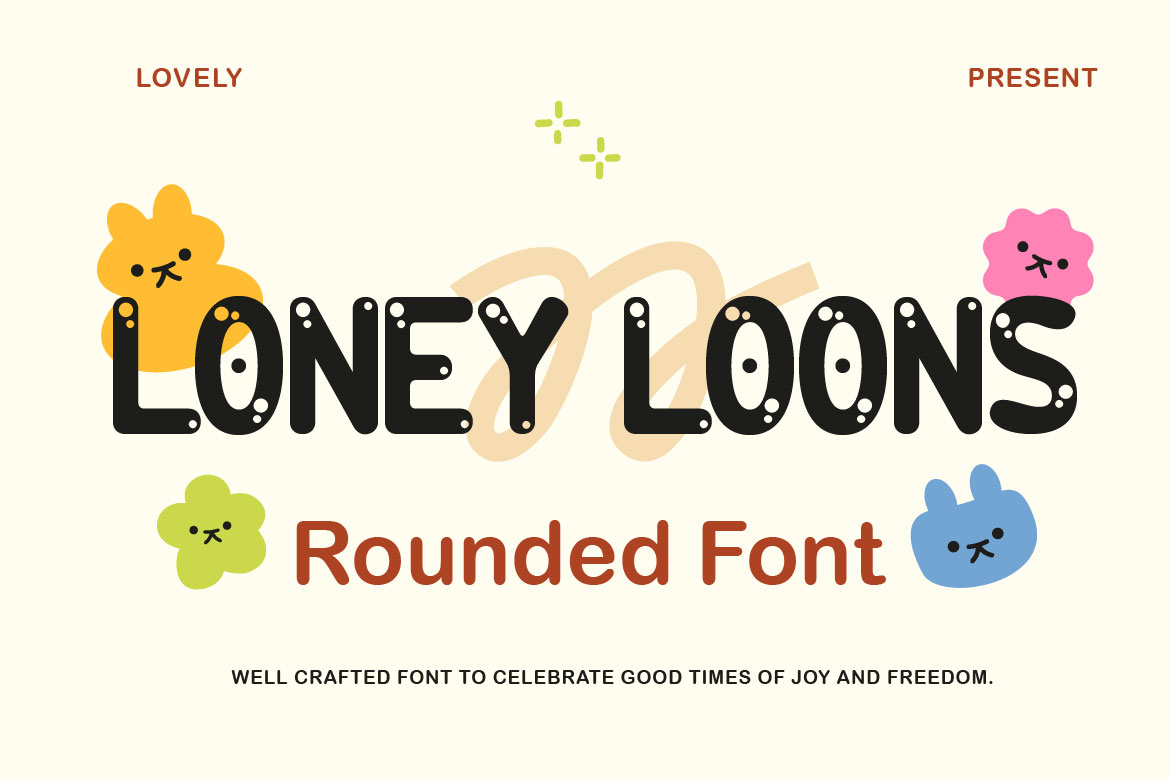
4. Glofium
Glofium, a bold and chunky typeface that’s super fun to use and easy to read. It comes with 2 styles: Regular dan Italic, so you can mix things up and keep your design looking fresh. This font have characterize of warm, friendly and impossible to ignore. If you’re working on a poster, branding project, social media post, poster, big headlines, product packaging or just want your words to stand out, Glofium got your back! The shapes are thick, rounded and friendly - making your text look bold but still super easy to read.
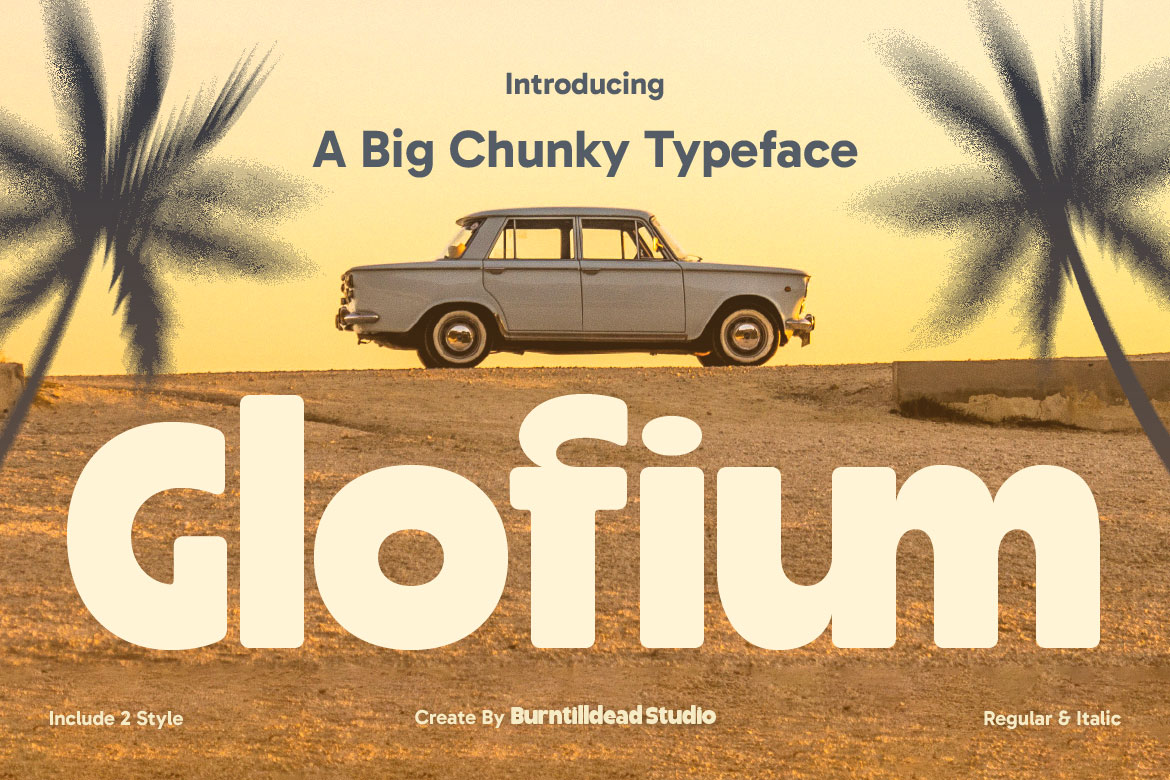
5. Holiyas
Holiyas, display font with unique and stylish characters. With a refreshing modern touch features beautiful ligatures, adding an artistic and unique touch to every word. Also this this font have elegant feel and 2 styles (regular & rounded style). Perfect for charming creative project and ideal for branding design, product packaging, invitation, logo design, posters that need touch of soft yet striking impression.
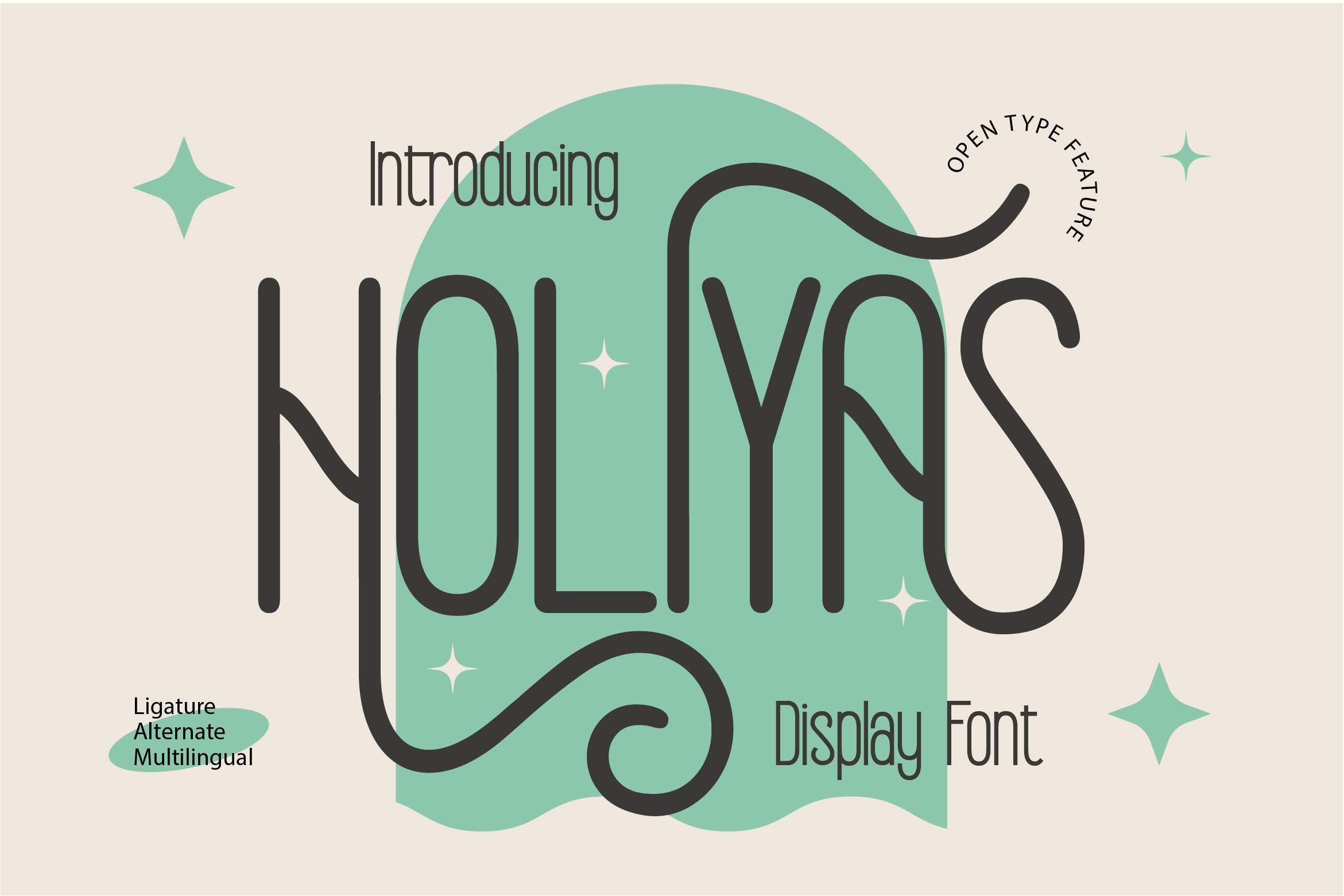
6. Pawon
Pawon, a fresh, bold and playful food font, perfect for food branding, restaurant menus, food packaging, and culinary design projects. Its smooth, wavy letterforms bring a lively and inviting feel, making your design look delicious and eye-catching. Designed for food-related businesses, cafes, bakeries, and organic product branding, Pawon comes in three styles: Regular, Outline, and Oblique. Whether you're creating a logo, menu, social media content, or food advertisements, Pawon adds a tasty and fresh touch to your designs.
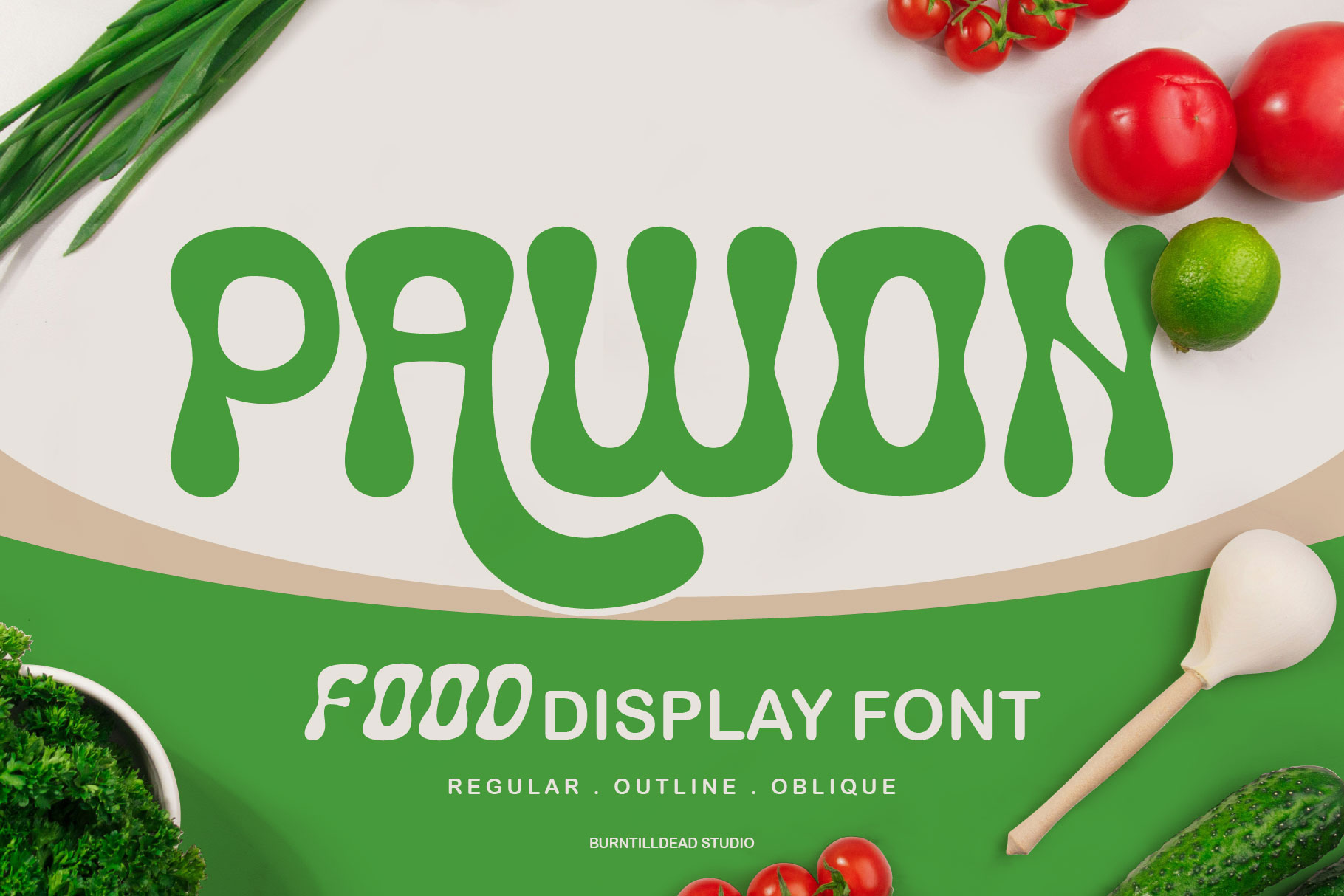
7. Brawlex
Brawlex, a bold display font with two styles. Inspired by varsity aesthetics, vintage poster, western signage and retro sport flair. Brawlex is a bold and confident typeface designed to stand out. Comes with Regular and Rounded style, make it easy to adapt to various design needs - from vintage logos design, retro posters and classic signage, to labels and product packaging. Brawlex also works great for social media graphics, music event flyers, or any design that need strong visual impact and a nostalgia touch.
8. Kidzoona
Kidzoona, a handwriting with cheerful vibes. Really playful typeface for any sweet or cute theme concept, illustration posters, stickers, fun graphics and more. Make your design happy and cheerful vibes. This font have many ligature & opentype feature. This font good for your logo design and can be the image of a design.
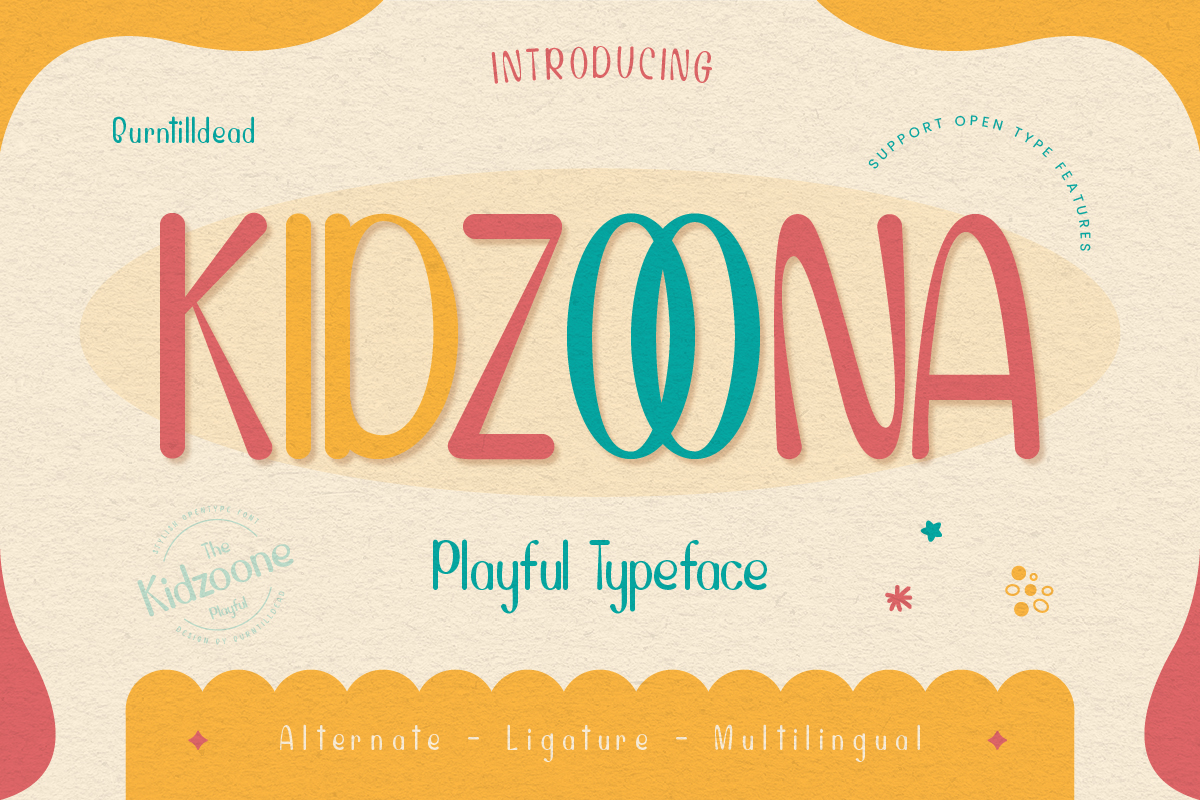
By understanding the charm and tone that rounded fonts can bring, you’ll be able to design something that feels more alive, more engaging, and more human. Don’t be afraid to experiment—and make sure you use high-quality fonts to keep your designs looking sharp and professional.